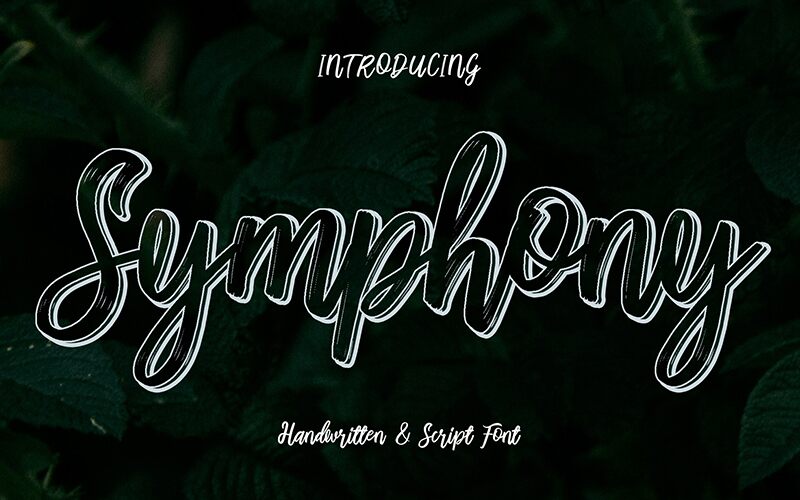
Symphony font is a casual handwritten font designed by Febryl Arully.
I designed this font with good and balanced graphics so that the use of the font will look good when composing paragraphs of sentences.